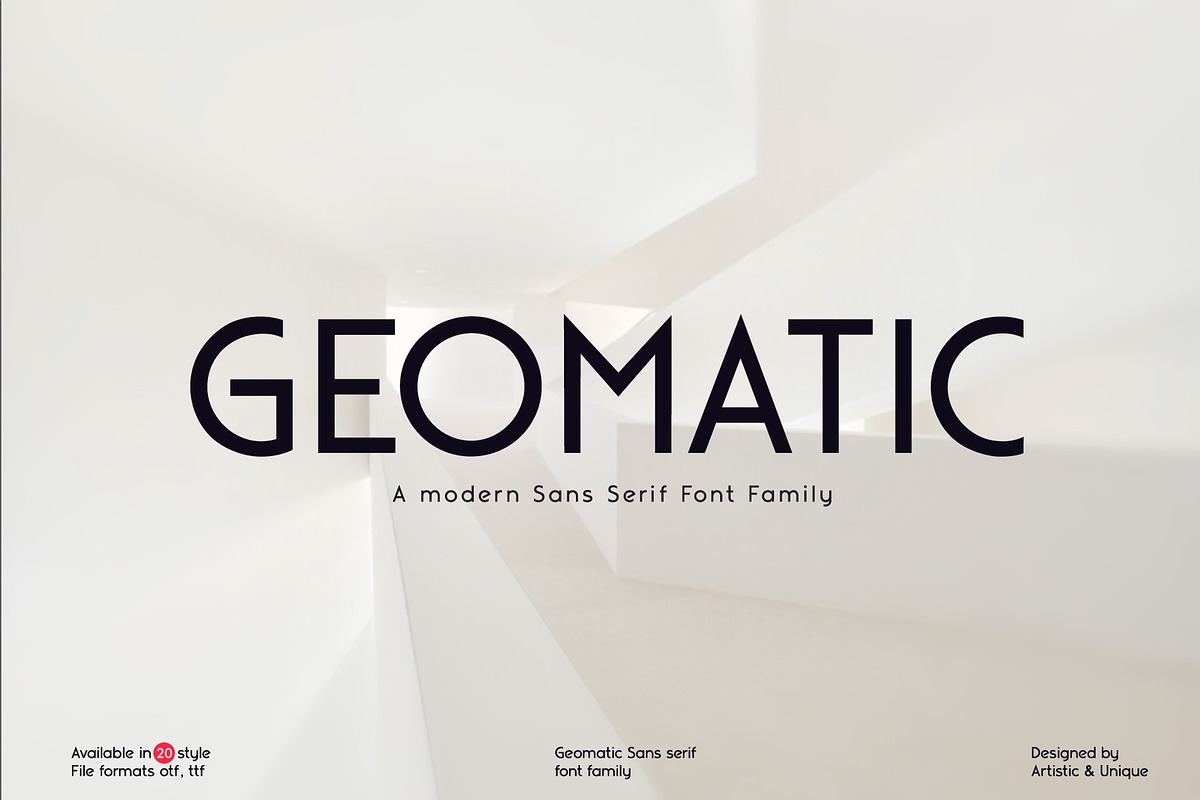
Geomatic - Sans serif font family Free Download
Upgrade your typography with Geomatic – Sans Serif Font Family Free Download, a clean and modern typeface perfect for versatile design needs. You need to purchase this font for commercial use. However, you can test it in personal or non-commercial projects using Geomatic – Sans Serif Font Family Free Download. With multiple weights and sharp geometric precision, Geomatic is ideal for branding, UI/UX design, editorial layouts, and corporate identity. Designers appreciate its clarity, readability, and minimalist style that adapts seamlessly across digital and print platforms. Download Geomatic – Sans Serif Font Family Free Download today and bring a professional, polished look to your next project.